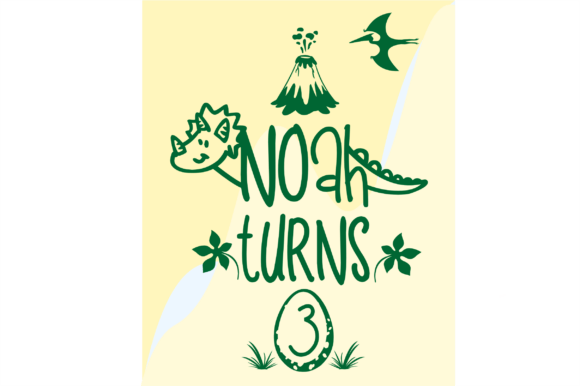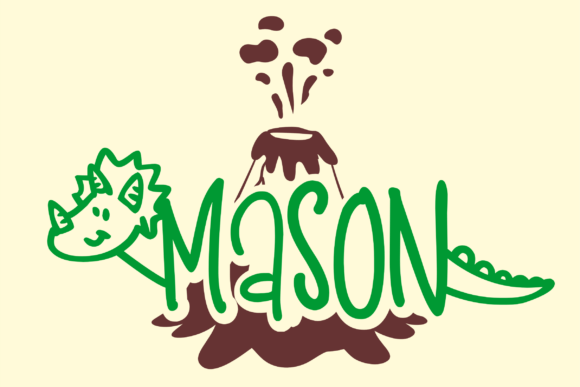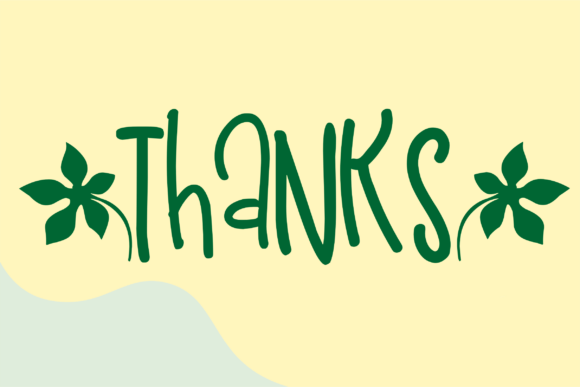
Introduction to Funny Dino Font
As designers, we’ve all been there – staring at a blank canvas, trying to come up with the perfect idea to make our project stand out. And then, it hits us – a spark of creativity that sets our imagination ablaze. For some, it’s a beautiful sunset, while for others, it’s a playful dino. For those who love a dash of prehistoric fun in their designs, we’ve got the perfect solution – the Funny Dino Font.
This adorable font is more than just a design resource; it’s a key to unlocking a world of creativity and playfulness in your projects. With its cheerful and handwritten style, the Funny Dino Font is perfect for kids’ designs, birthday invitations, posters, apparel, and nursery decor. And the best part? It’s available for free download, making it an instant hit among designers looking for high-quality design assets.
Whether you’re working on a creative project that needs a dash of whimsy or just want to add a Jurassic charm to your designs, the Funny Dino Font is an excellent choice. Its transparent background and high-quality design make it a valuable addition to any designer’s toolkit.
Key Features of Funny Dino Font
- Unique and playful design, perfect for creative projects and adding a touch of humor.
- Designed to be a fun and engaging design resource, perfect for adding a whimsical touch to any creative project.
Honest Review: Funny Dino Font
I recently had the chance to work with the Funny Dino Font for a creative project, and I must say, it’s been a fun addition to my design resources. One of the standout features of this font is its high quality and unique design. The creator has done a great job of crafting a font that’s both playful and professional.
- What works well: ✨ The transparent background makes it easy to integrate into various design elements, and the font itself is highly customizable.
However, there are a few limitations to consider. One of the main drawbacks is the limited character set. If you’re looking for a font that can handle complex text or international characters, you may want to look elsewhere.
- Limitations: ⚠️ Limited character set
- Limitations: ⚠️ Some users may find the font a bit too cartoonish for certain projects
Overall, I’m impressed with the Funny Dino Font and would recommend it to designers working on creative projects that require a fun and playful touch. Just be aware of the limitations, and you’ll be good to go!
Tips for Getting the Most Out of it
To get the most out of the Funny Dino Font, use it on a transparent background for a fun and playful look. You can also combine it with other design resources for a high-quality creative project.
The Funny Dino Font is perfect for a variety of creative projects, including social media graphics, posters, and children’s book illustrations. Its unique design makes it a great addition to any design resource collection.
Is the Funny Dino Font high quality?
Yes, the Funny Dino Font is a high-quality design resource. It’s carefully crafted to ensure crisp and clear typography, making it perfect for a variety of creative projects. The font is also fully scalable, allowing you to use it for any size or resolution.